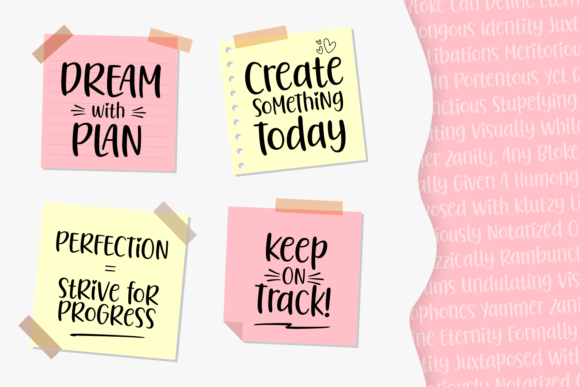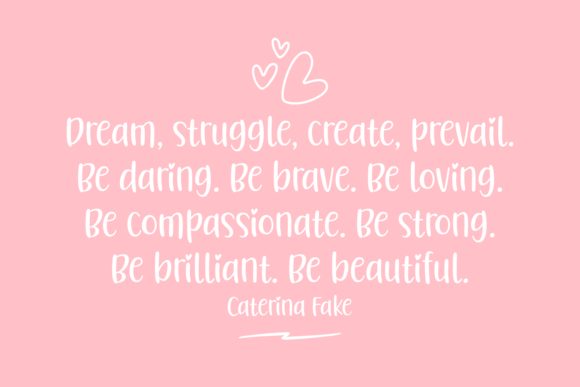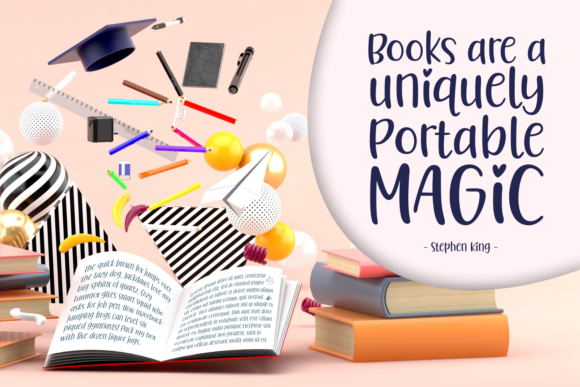
Unlocking the World of Handwritten Fonts: Discover Brilly Notes Font
Have you ever been in the middle of a creative project, pouring your heart and soul into every detail, when suddenly you stumble upon the perfect font to bring it all together? For many designers, this moment of serendipity is what sets their work apart. It’s the spark that ignites a whole new level of inspiration and creativity.
For those who have experienced this thrill, we’re excited to introduce Brilly Notes Font – a sweet and friendly handwritten font that’s sure to become your new go-to companion. With its natural and unique style, Brilly Notes Font is the perfect addition to any design project, from invitations and greeting cards to social media graphics and more.
Whether you’re a seasoned pro or just starting out, Brilly Notes Font is a valuable tool in your design arsenal. Its versatility and charm make it incredibly fitting to a wide range of designs, limited only by your imagination. So why settle for a generic font when you can add a touch of personality to your work with Brilly Notes Font?
Brilly Notes Font Key Features
- Unique Characteristics: Brilly Notes Font features a unique, handwritten style with subtle variations in line width and texture, giving it a personal and expressive feel.
Brilly Notes Font Review
I recently had the chance to play around with the Brilly Notes Font, and I must say it’s a unique addition to any design project. ✨ The font’s handwritten feel gives it a personal touch that can be quite charming, especially in applications like invitations or social media posts. The variations in line weight and letterform make it feel dynamic and expressive.
- ✨ The handwritten feel adds a personal touch
- ✨ Variations in line weight and letterform make it dynamic
- ✨ Suitable for applications like invitations or social media posts
However, I do have some reservations about the font’s limitations. ⚠️ The Brilly Notes Font may not be the best choice for body text due to its busy and informal appearance. It can also be challenging to read in certain font sizes or resolutions. Additionally, the font’s consistency can be a bit inconsistent across different platforms and devices.
- ⚠️ May not be suitable for body text due to its informal appearance
- ⚠️ Can be challenging to read in certain font sizes or resolutions
- ⚠️ Inconsistent across different platforms and devices
Overall, I think the Brilly Notes Font is a great addition to any designer’s toolkit, but it’s essential to use it thoughtfully and in the right context. With its unique personality and versatility, it can add a touch of whimsy to any design project.
Tips for Getting the Most Out of Brilly Notes Font
To get the most out of Brilly Notes Font, use it in combination with bold or italic text for emphasis, and consider using it for headings or titles.
Brilly Notes Font is ideal for creating a playful, handwritten feel in your designs.
Brilly Notes Font is commonly used in:
- Handwritten-style invitations and cards
- Children’s educational materials
Is Brilly Notes font suitable for large-scale printing projects?
Brilly Notes font is designed for on-screen use and may not be optimized for large-scale printing projects. However, it can still be used for printing purposes. For best results, we recommend using a high-resolution font rendering engine and adjusting the font size and leading accordingly.